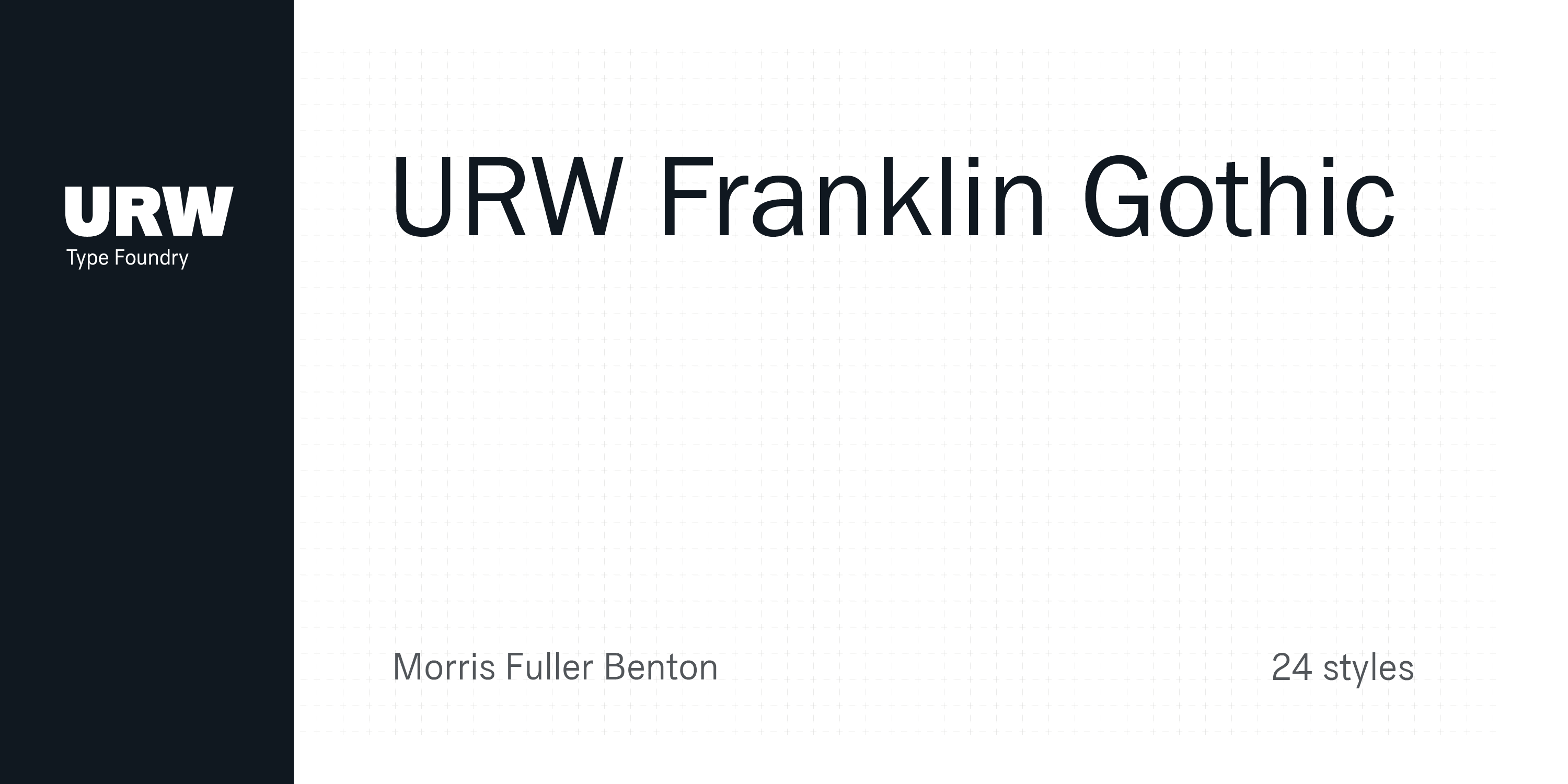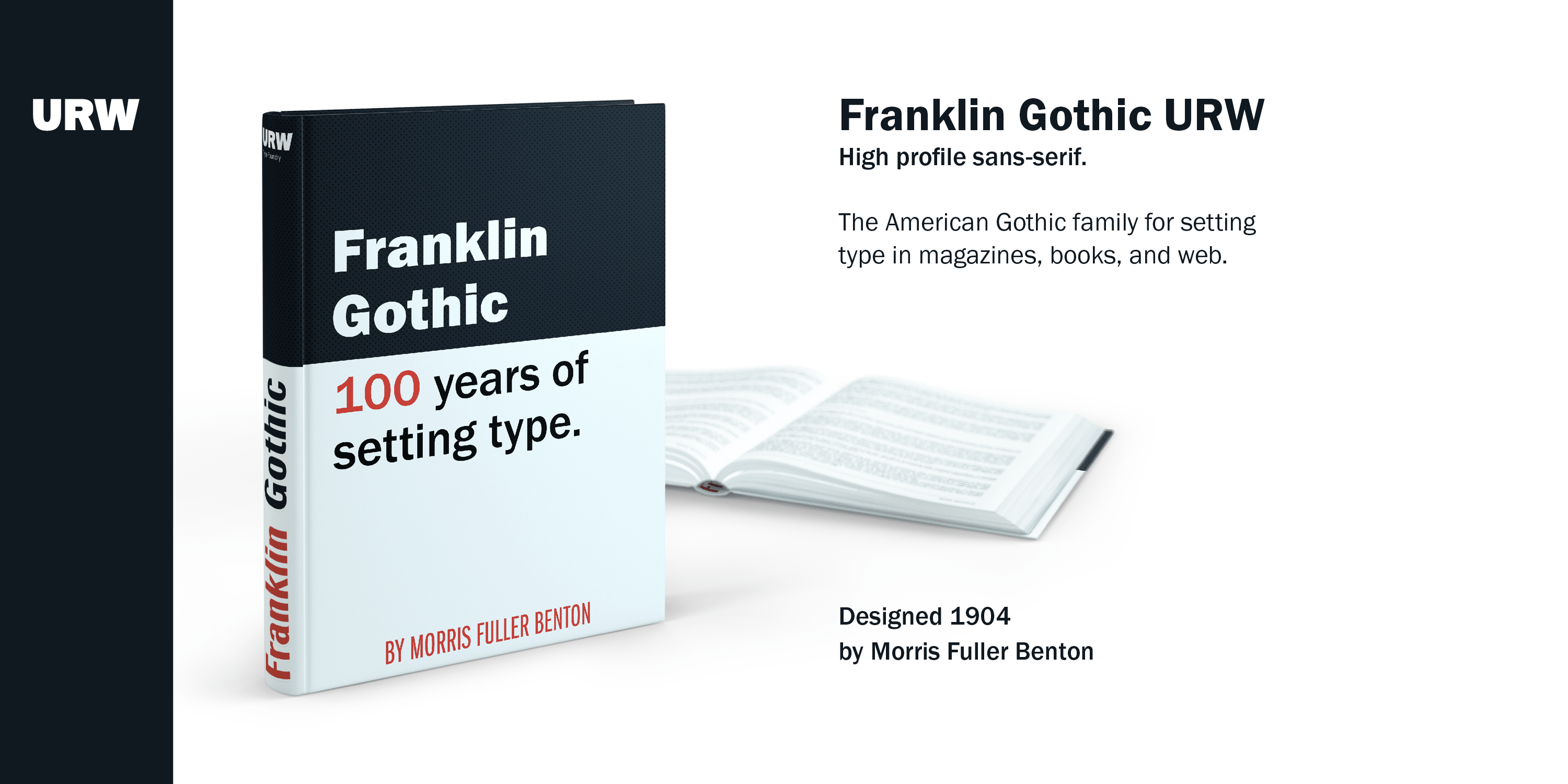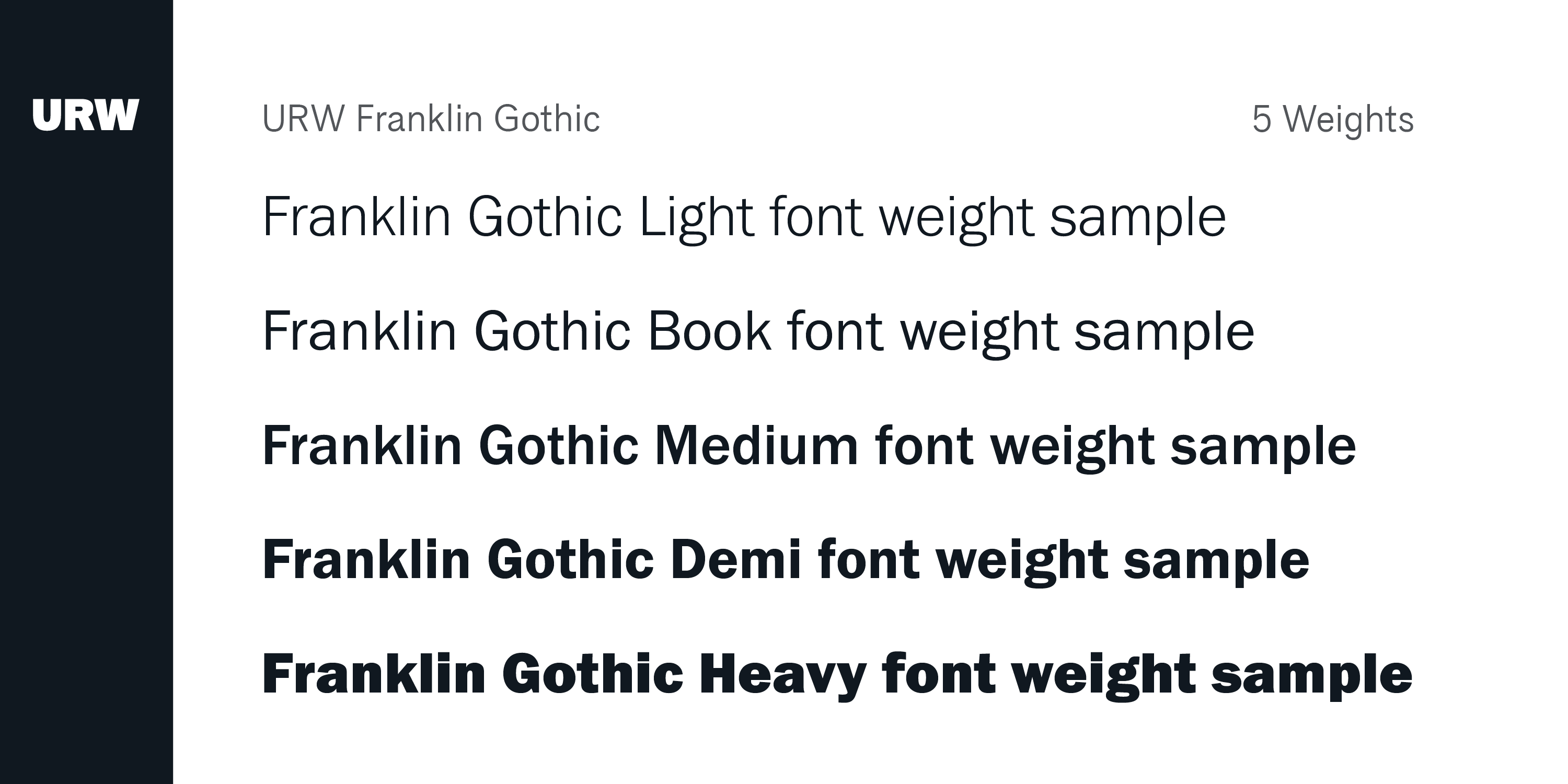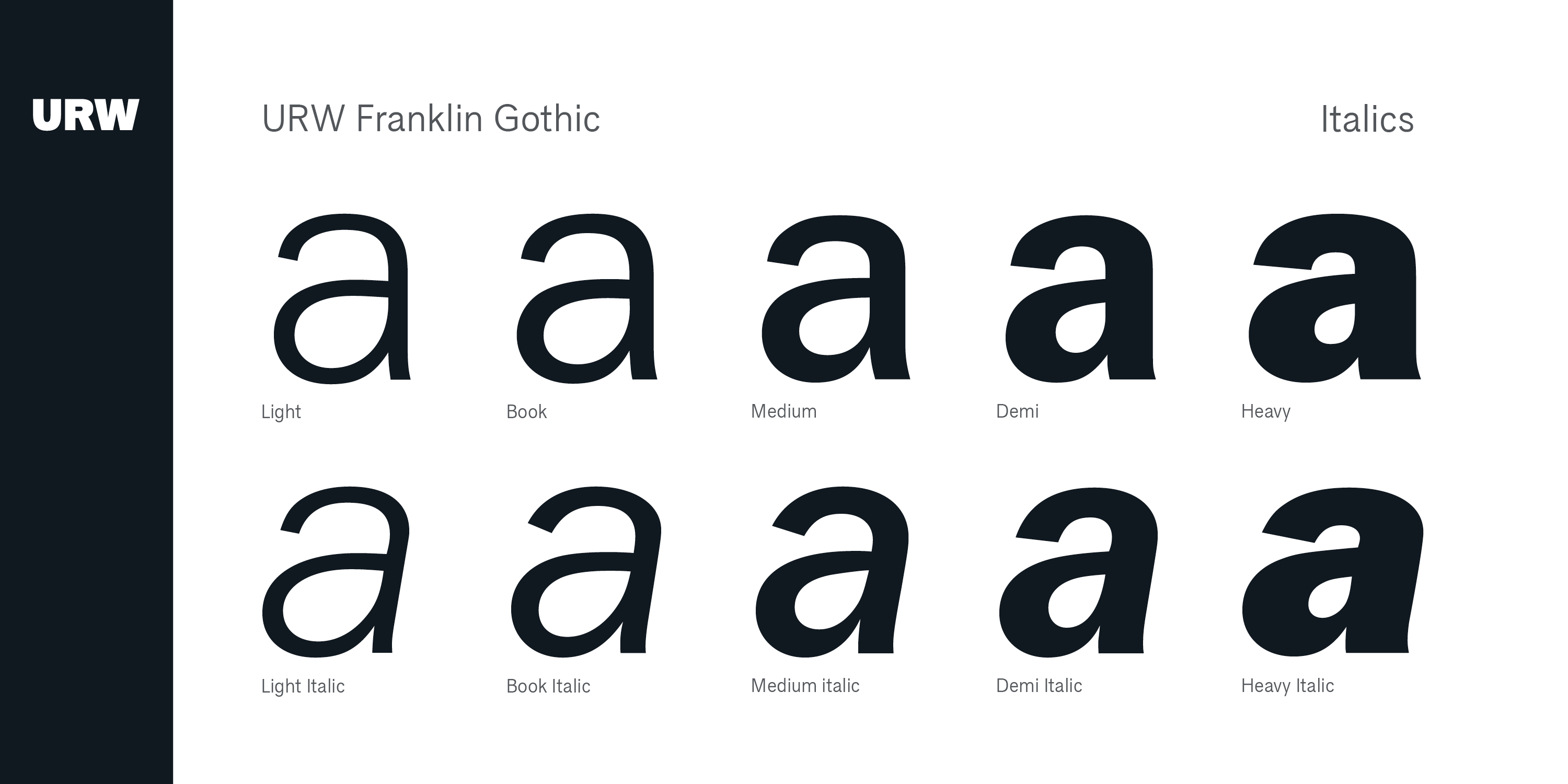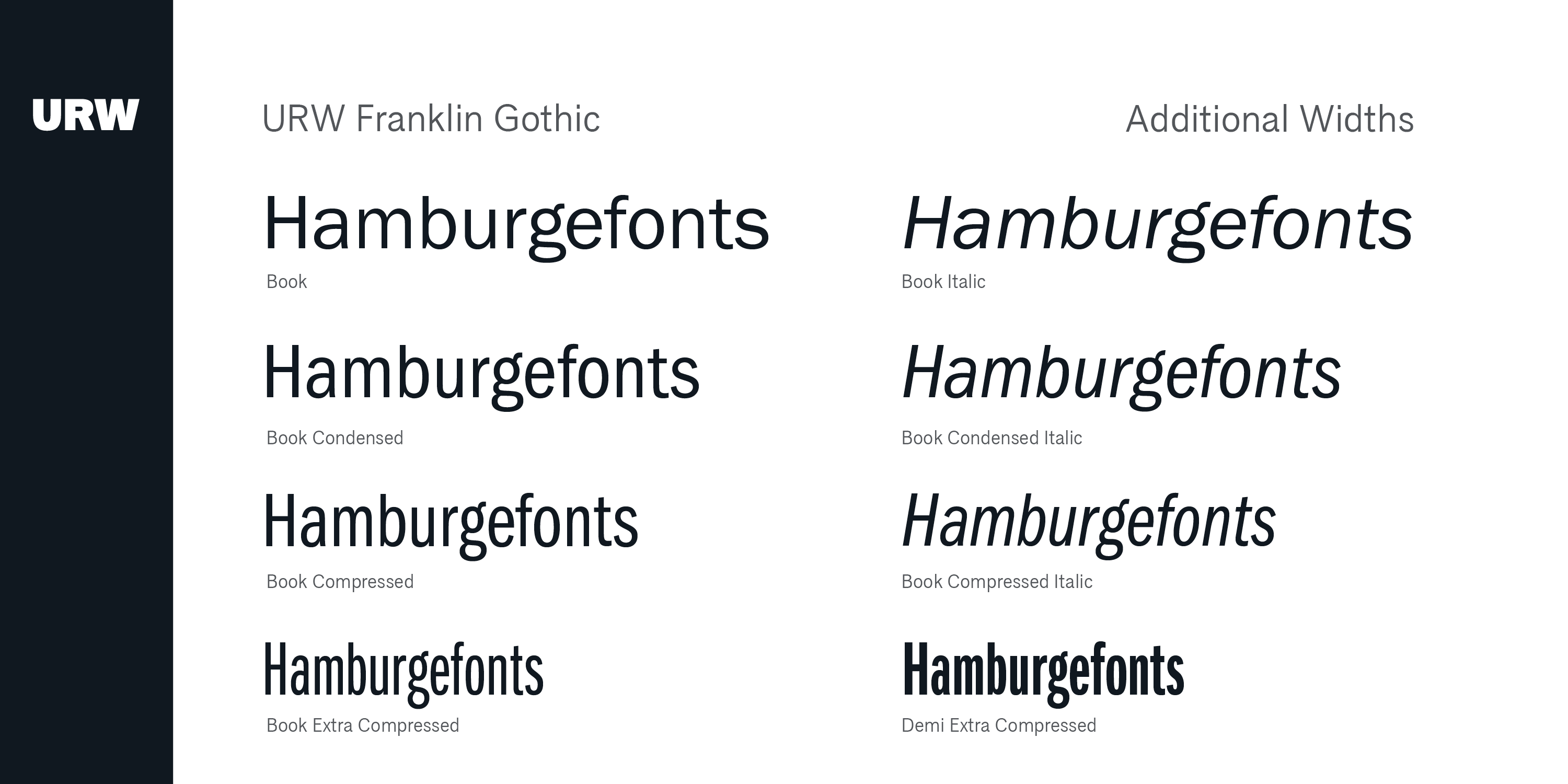
Franklin Gothic
Font Family by URW++
By 1915, all the major foundries offered families of sans serifs, sometimes called Gothic in the USA. Franklin was a response suitable for countries in the vanguard of the machine age. Designed by Morris Benton in 1903-1912, Franklin has preserved its own personality ever since. The ITC Franklin Gothic font family is a redrawing by ITC that keeps the original strength intact, meeting the demand for a strong typeface. ITC Franklin Gothic is better read in display sizes and considered a standard in the newspaper and advertising fields.